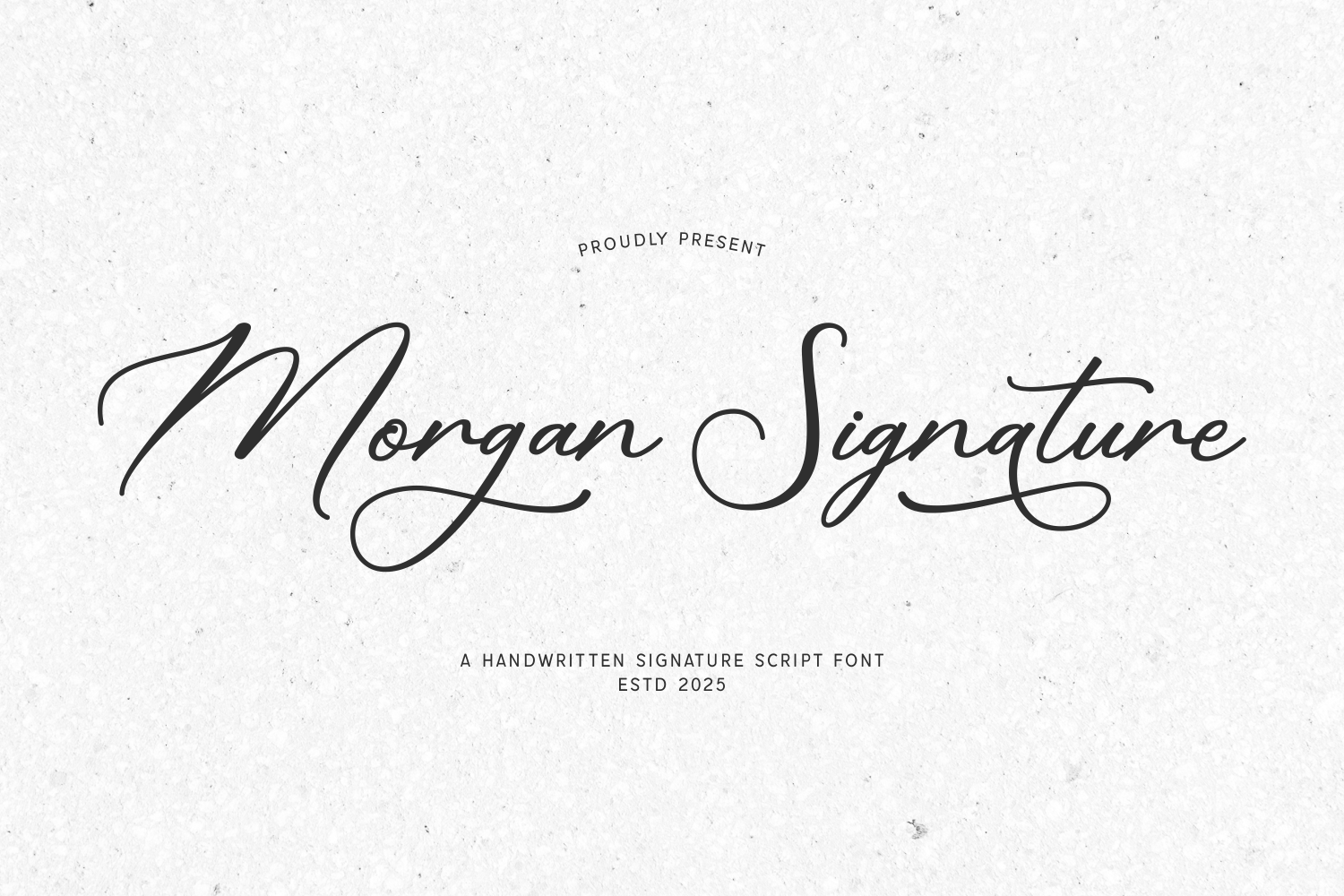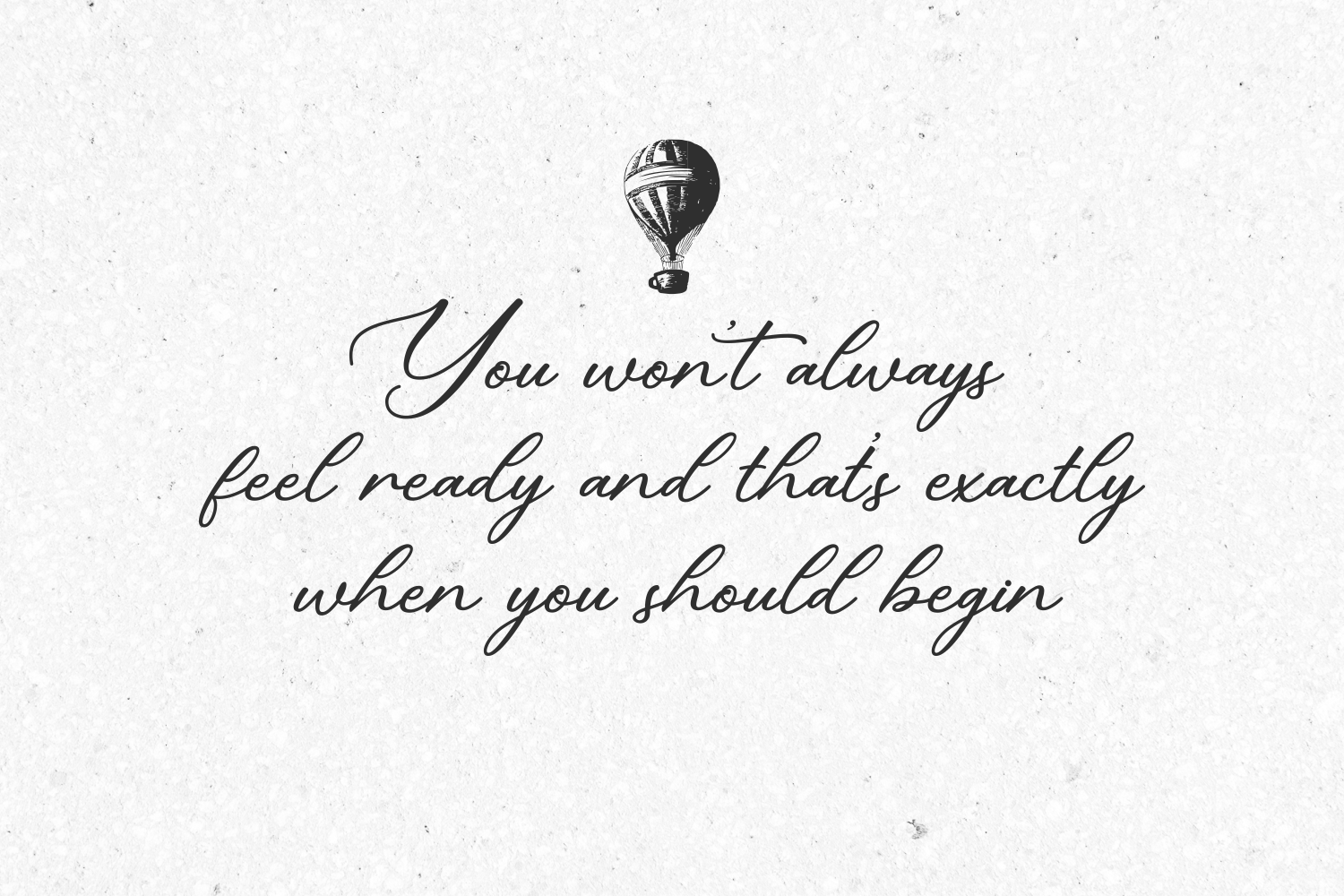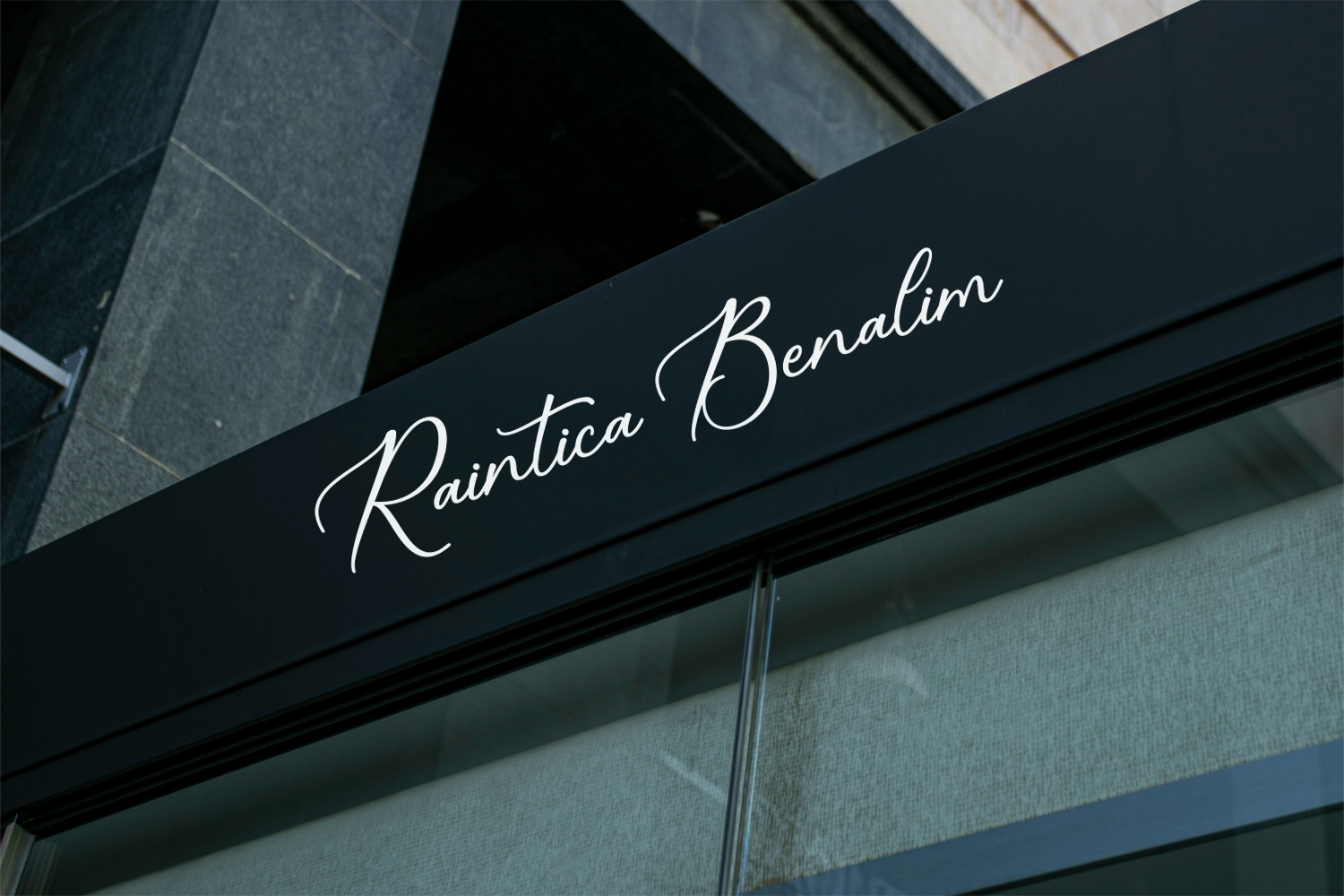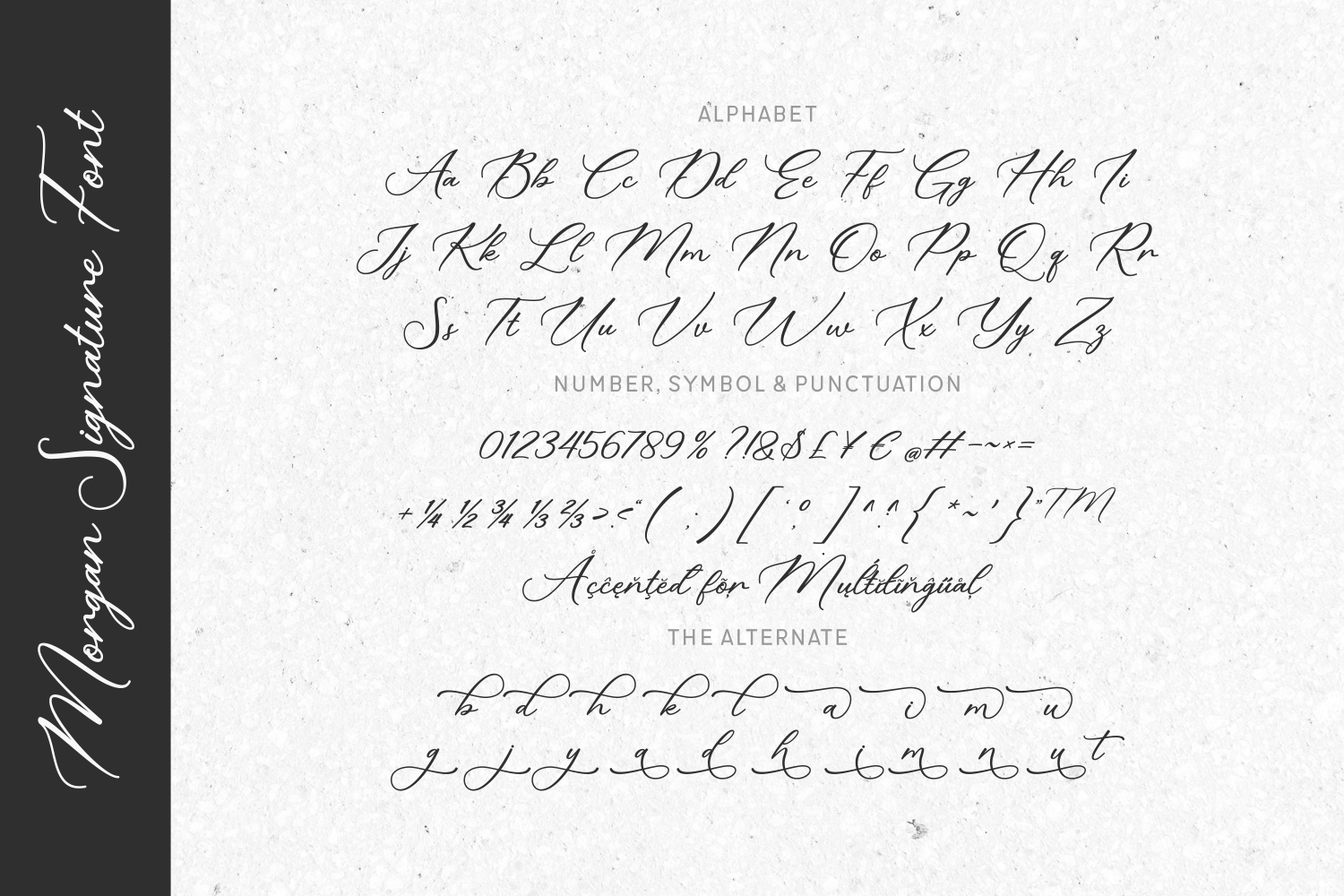
Morgan Signature
Morgan Signature is a refined handwritten signature script font that combines elegance with a touch of modern flair.
Crafted with attention to detail, Morgan Signature includes a full set of uppercase and lowercase letters, numerals, punctuation, multilingual accents, and an array of stylistic alternates.